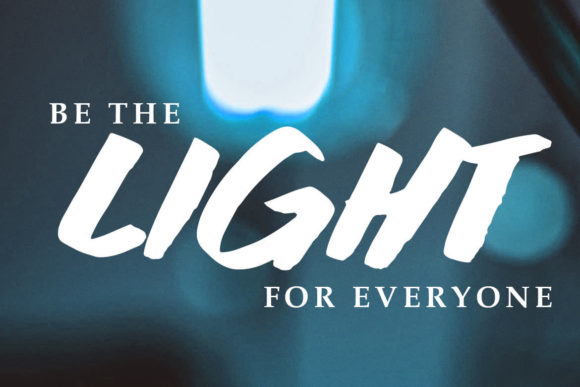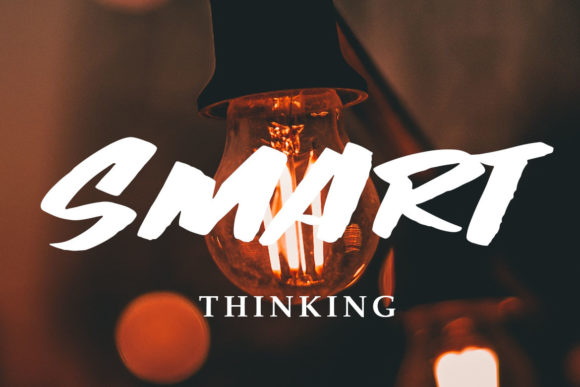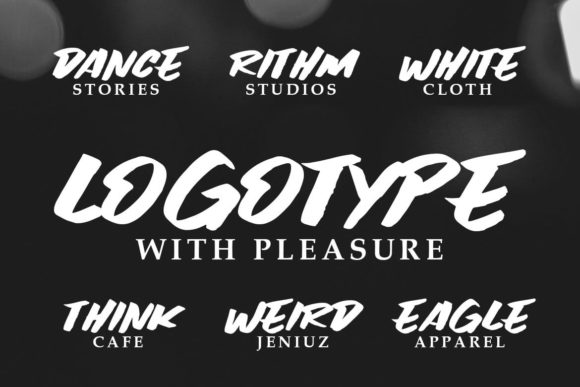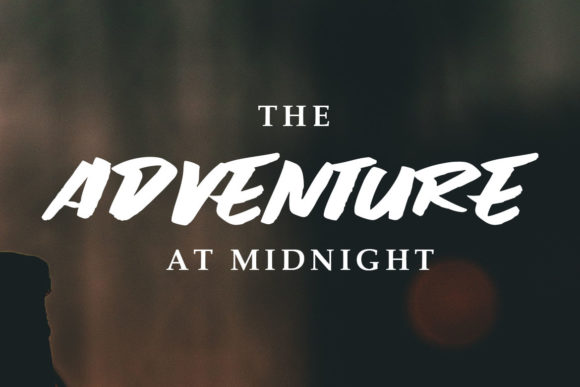
Glam Hills Font: Elevate Your Designs with a Cool, Brushed Display Font
Are you tired of using the same old fonts in your designs? Do you want to add a touch of glamour and sophistication to your creations? Look no further than Glam Hills Font, a cool, brushed display font that’s sure to elevate your designs to the next level. In this article, we’ll take a closer look at Glam Hills Font, its features, and how it can be an incredible asset to your font library.
What is Glam Hills Font?
Glam Hills Font is a stylish, brushed display font that’s perfect for designers and crafters looking to add a touch of glamour to their creations. Its unique, hand-brushed texture gives it a distinctive look that’s sure to grab attention. Whether you’re working on a logo, brochure, or social media post, Glam Hills Font is the perfect choice for adding a touch of sophistication and elegance.
Key Features of Glam Hills Font
So, what makes Glam Hills Font so special? Here are some of its key features:
- Cool, Brushed Texture: Glam Hills Font features a unique, hand-brushed texture that gives it a distinctive look.
- Display Font: Designed specifically as a display font, Glam Hills Font is perfect for headlines, titles, and other display text.
- Versatile: No matter the topic or industry, Glam Hills Font is versatile enough to be used in a wide range of designs.
- Elegant and Sophisticated: With its glamorous, hand-brushed texture, Glam Hills Font adds a touch of elegance and sophistication to any design.
Why You Need Glam Hills Font in Your Library
So, why should you add Glam Hills Font to your library? Here are just a few reasons:
- Elevate Your Designs: With Glam Hills Font, you can elevate your designs and add a touch of glamour and sophistication.
- Stand Out from the Crowd: In a sea of generic fonts, Glam Hills Font is sure to make your designs stand out and grab attention.
- Save Time: With Glam Hills Font, you can save time and effort by having a high-quality, stylish font at your fingertips.
- Perfect for a Wide Range of Projects: Whether you’re working on a logo, brochure, or social media post, Glam Hills Font is perfect for a wide range of projects.
How to Use Glam Hills Font
Using Glam Hills Font is easy. Here are a few tips to get you started:
- Pair it with a Simple Font: Pair Glam Hills Font with a simple font for body text to create a striking contrast.
- Use it for Headlines and Titles: Glam Hills Font is perfect for headlines and titles, where its unique texture can really shine.
- Experiment with Colors: Try experimenting with different colors to really make Glam Hills Font pop.
| Font Name | Glam Hills Font |
| Author | fontherapy |
In conclusion, Glam Hills Font is a cool, brushed display font that’s sure to elevate your designs to the next level. With its unique, hand-brushed texture and elegant, sophisticated look, it’s the perfect choice for designers and crafters looking to add a touch of glamour to their creations. Whether you’re working on a logo, brochure, or social media post, Glam Hills Font is an incredible asset to your font library.
Get Ready to Elevate Your Designs with Glam Hills Font